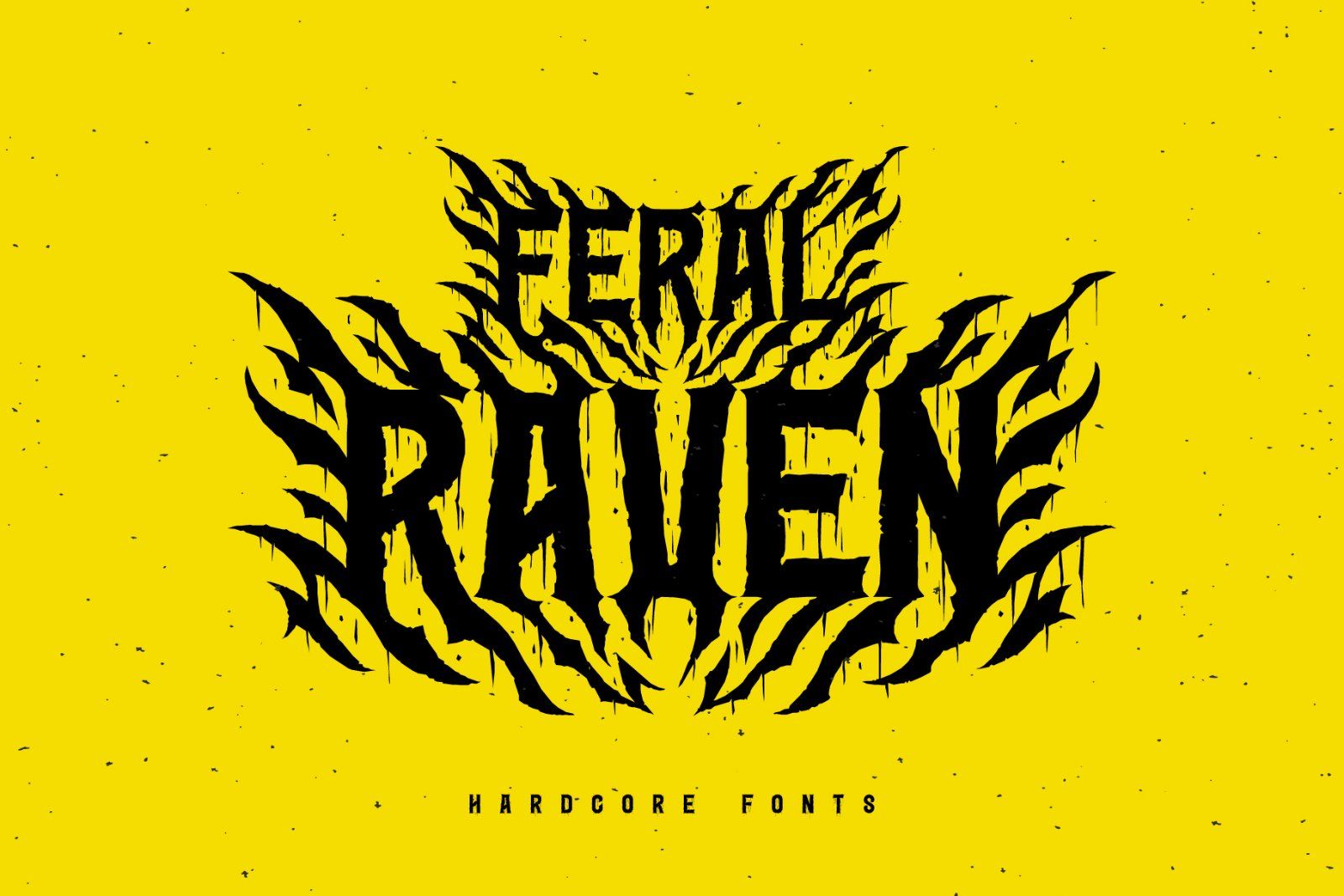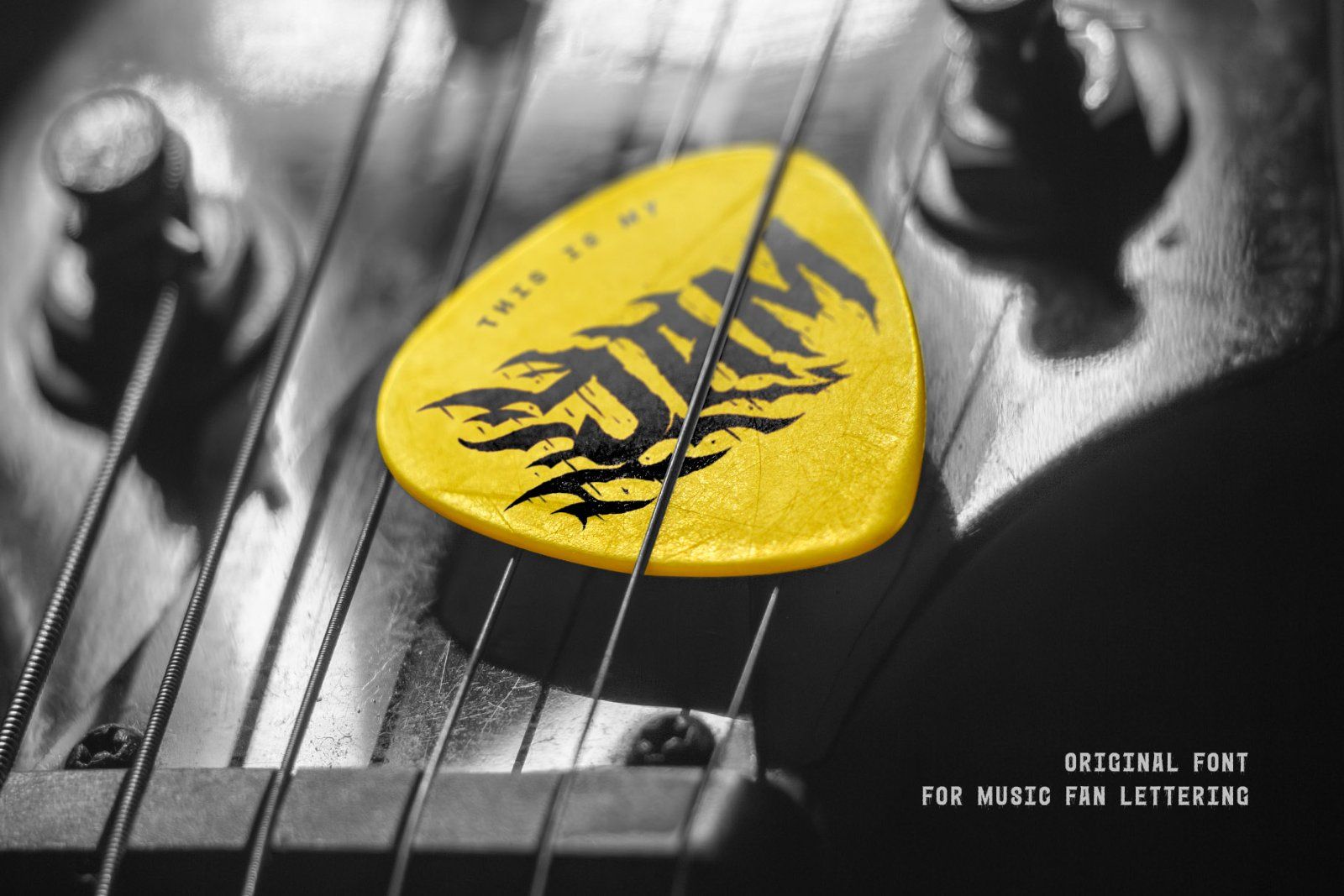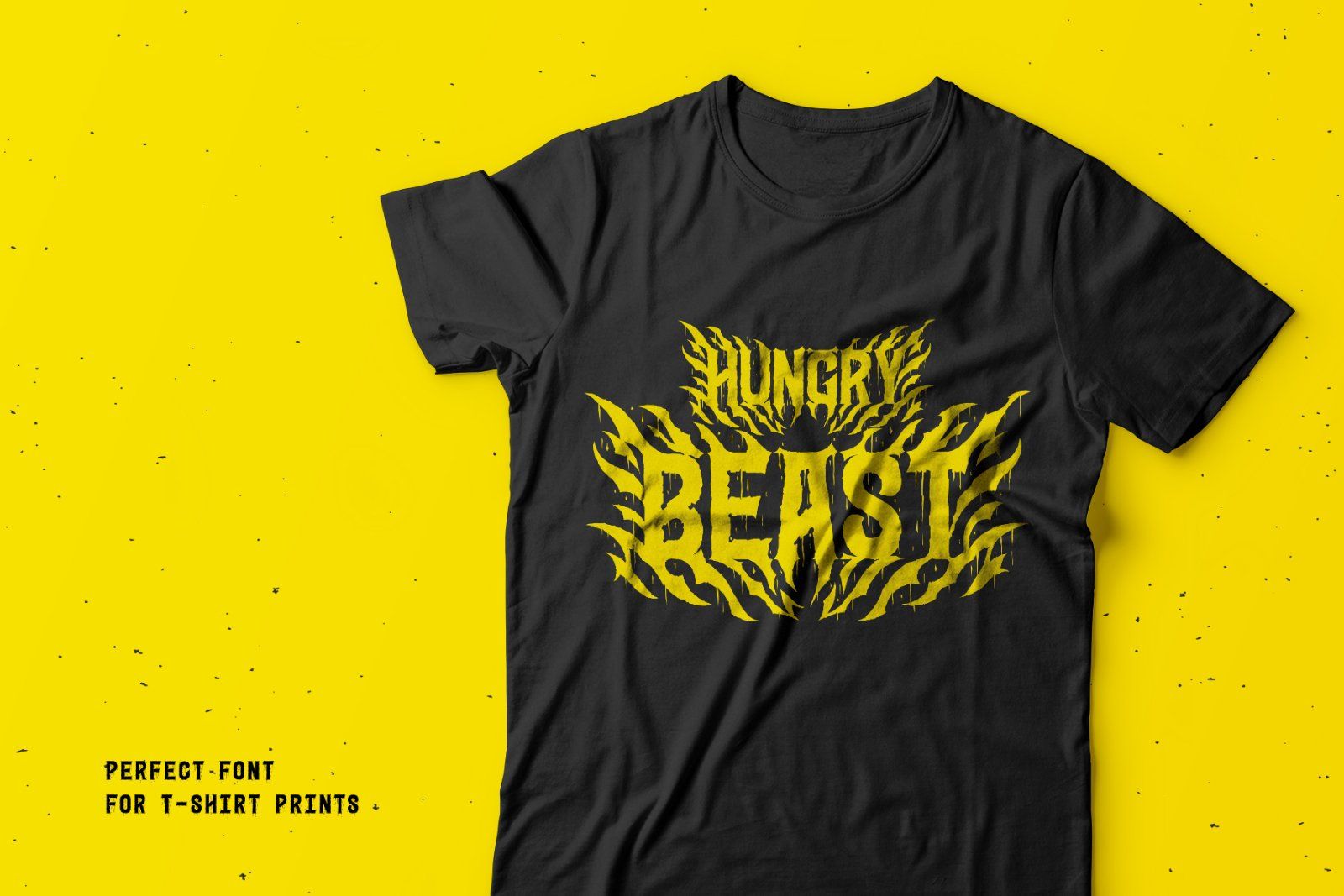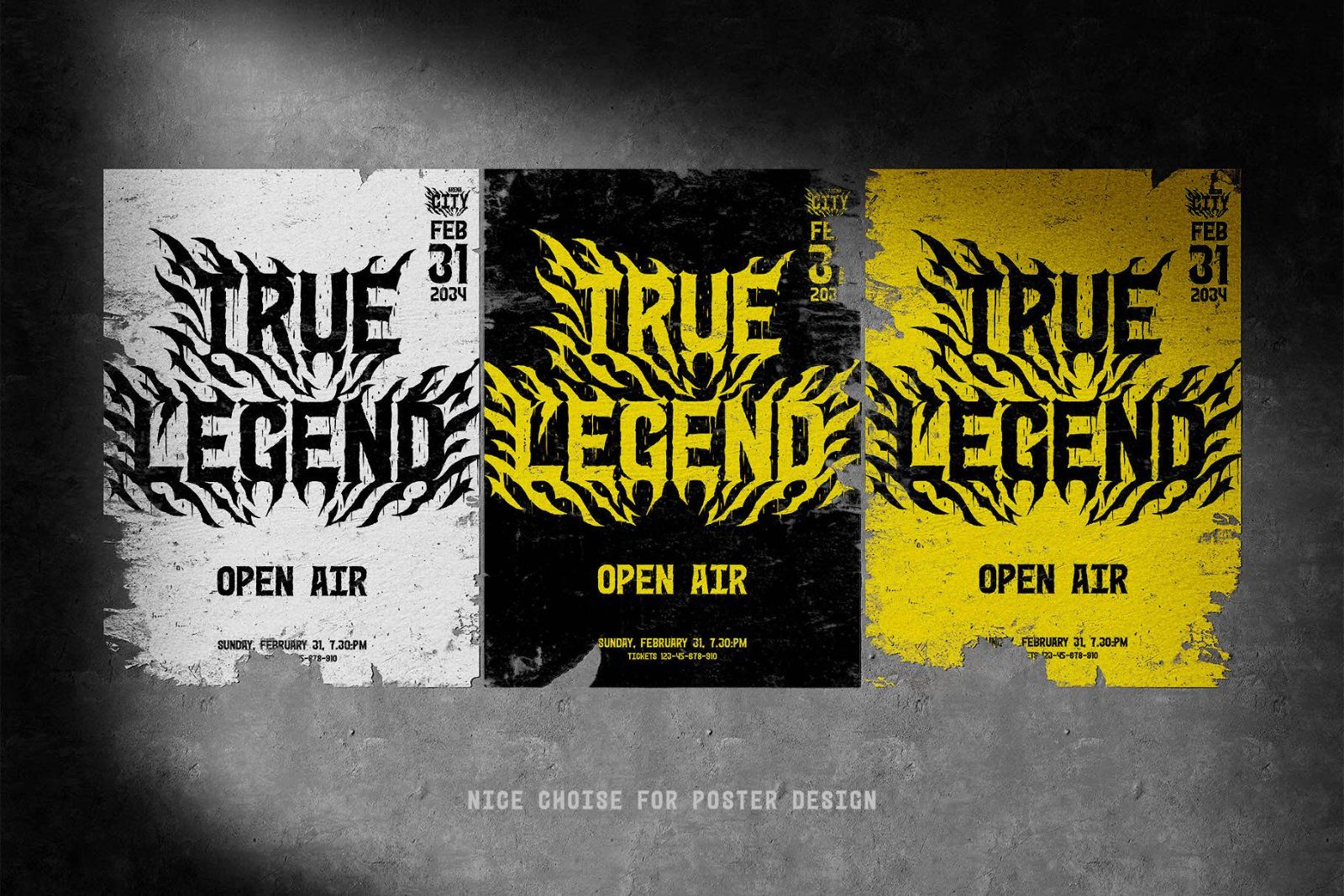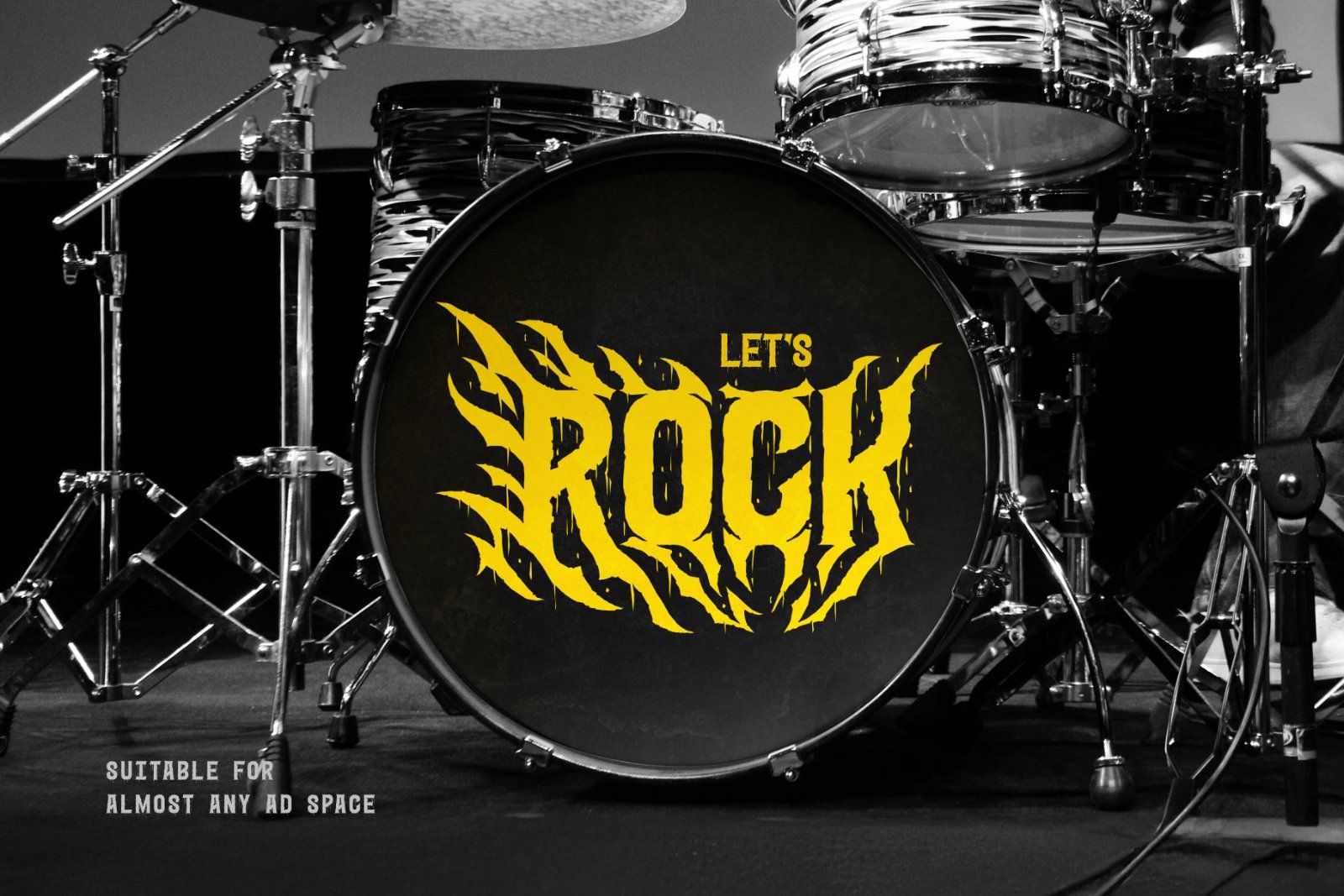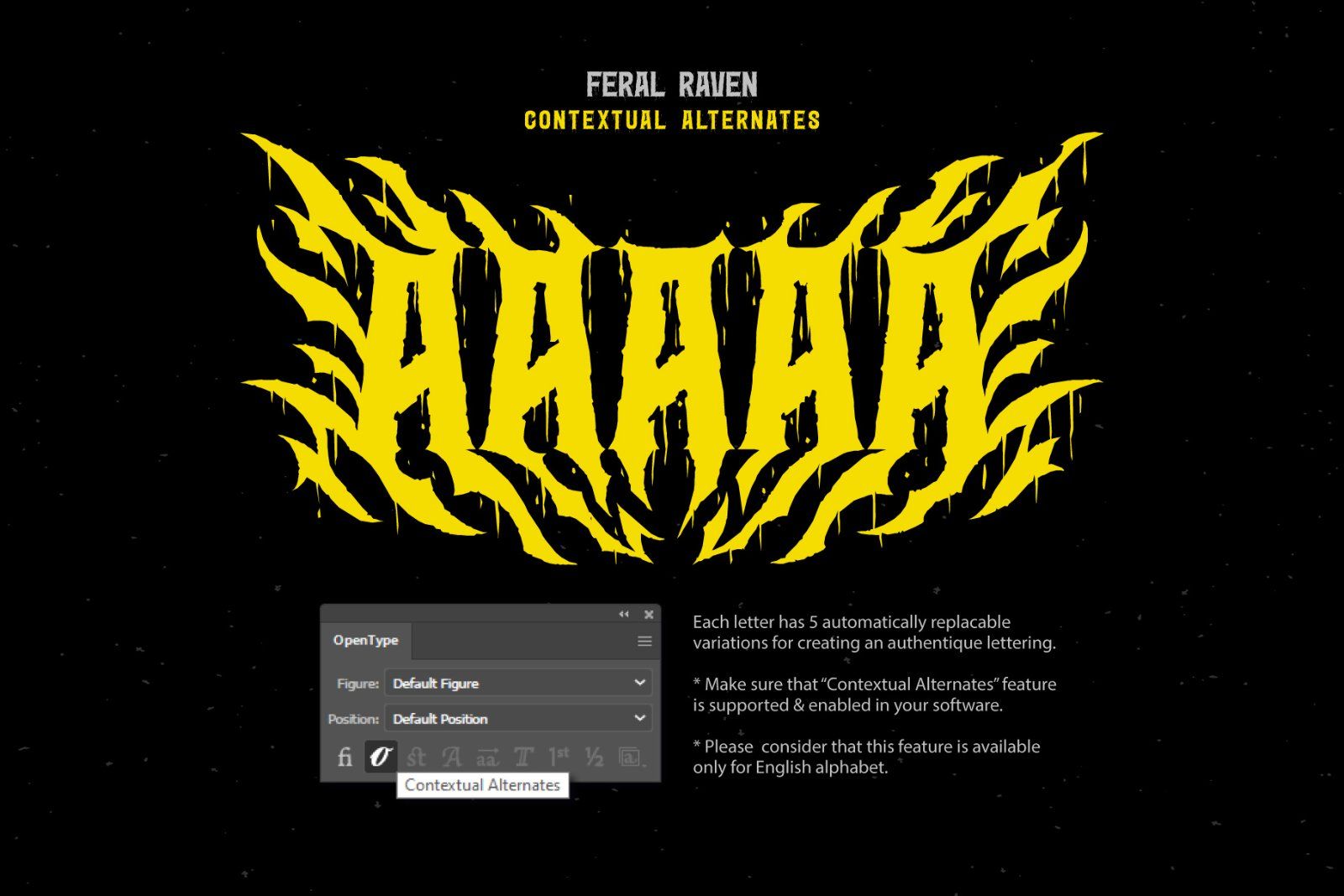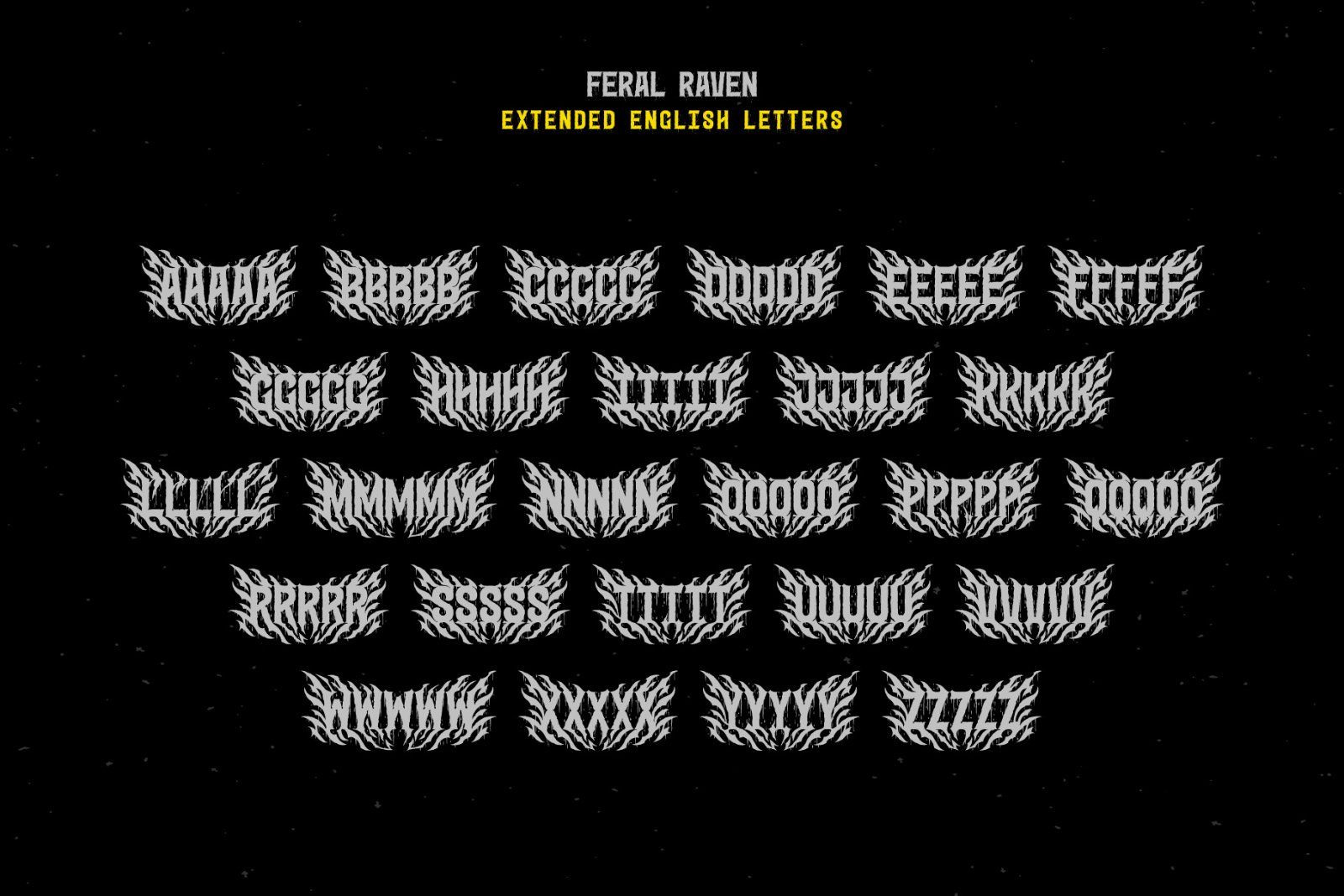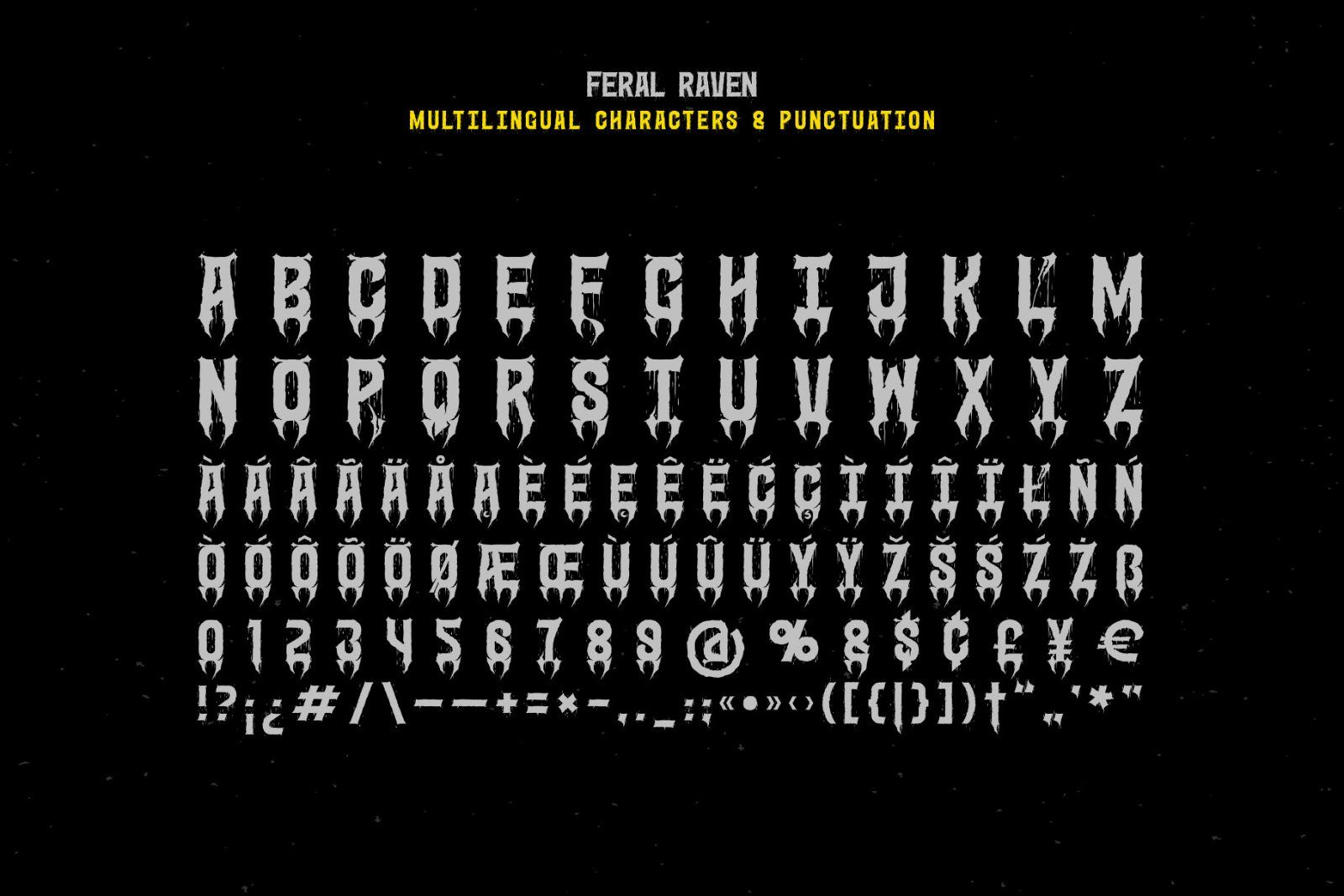
Hello! Introducing Feral Raven, a creatively complex decorative font. This bold typeface features rugged, sharp lines reminiscent of scars or tribal ornaments. Each letter comes with five variations that automatically switch to form symmetrical pattern compositions. A simplified base font is also included, perfect for typing supporting text.
Ensure that the "Contextual Alternates" OpenType feature is activated in your app to achieve the desired effect. The Hairy Metal font supports most European languages; however, please note that the special 5-letter feature is available only for the English alphabet (refer to the screenshots to view full set of available characters).